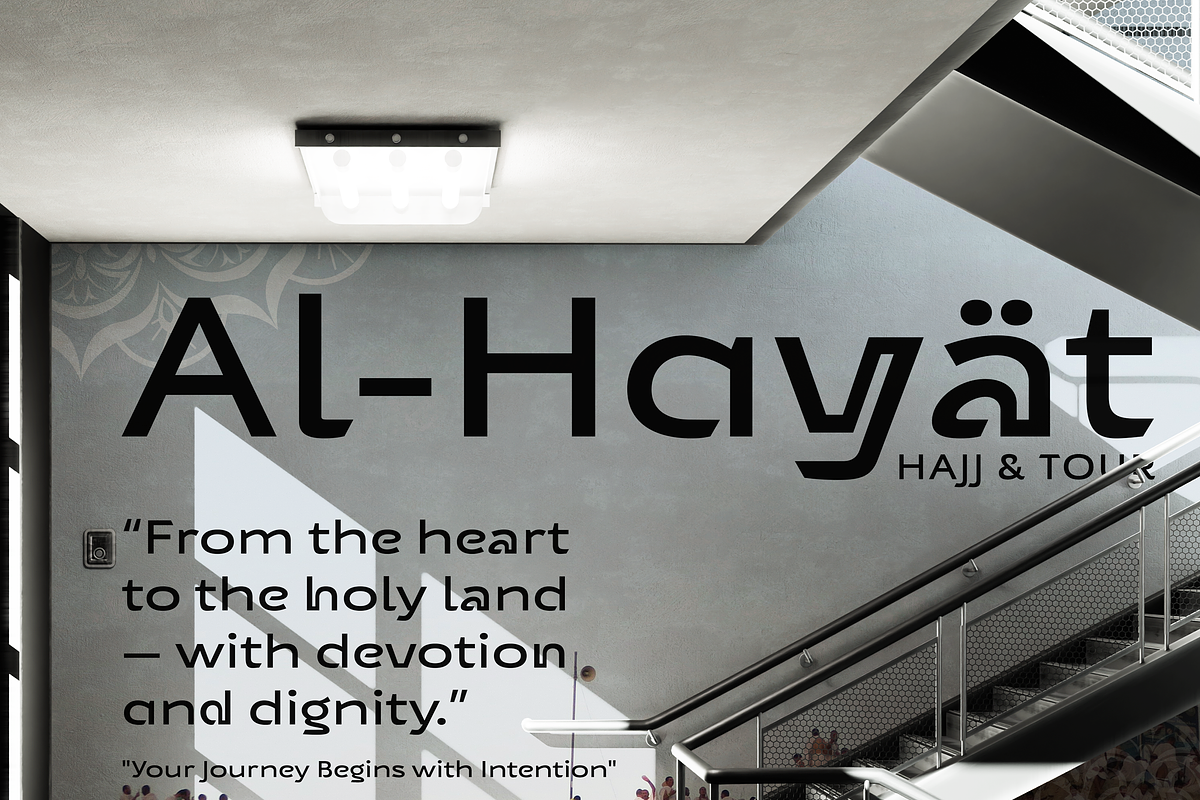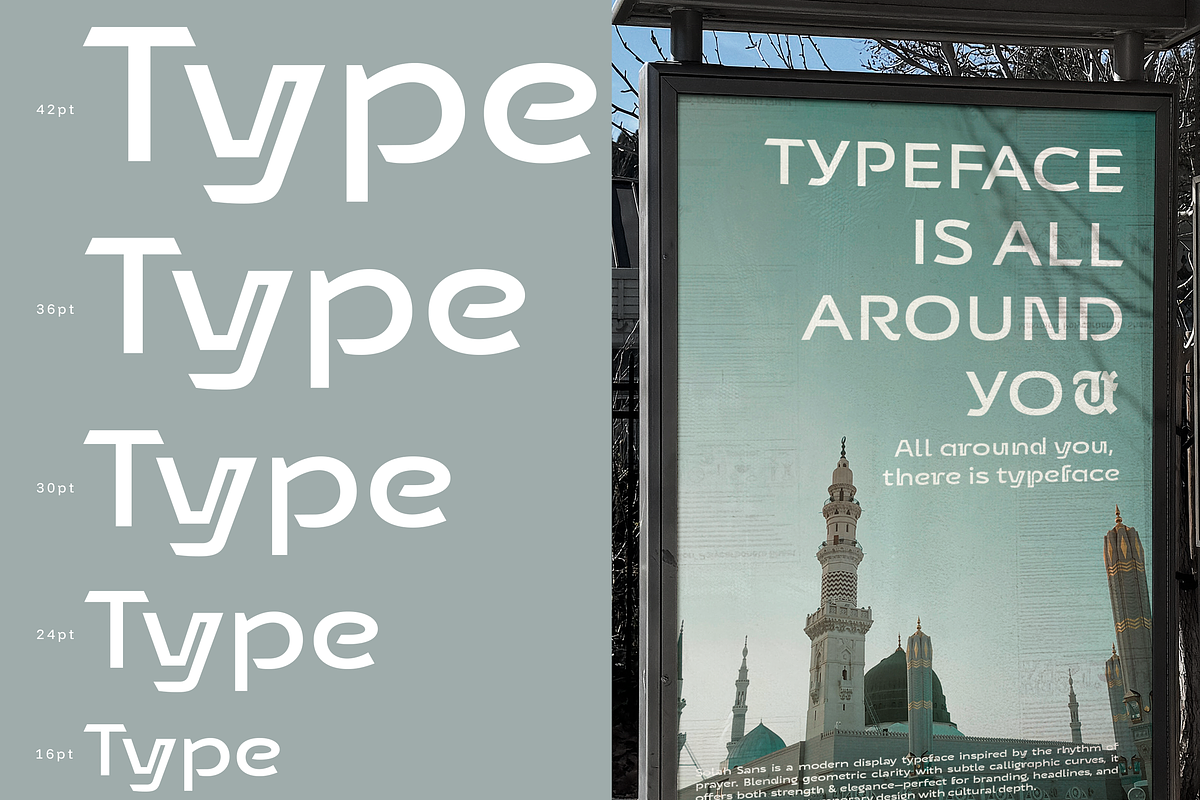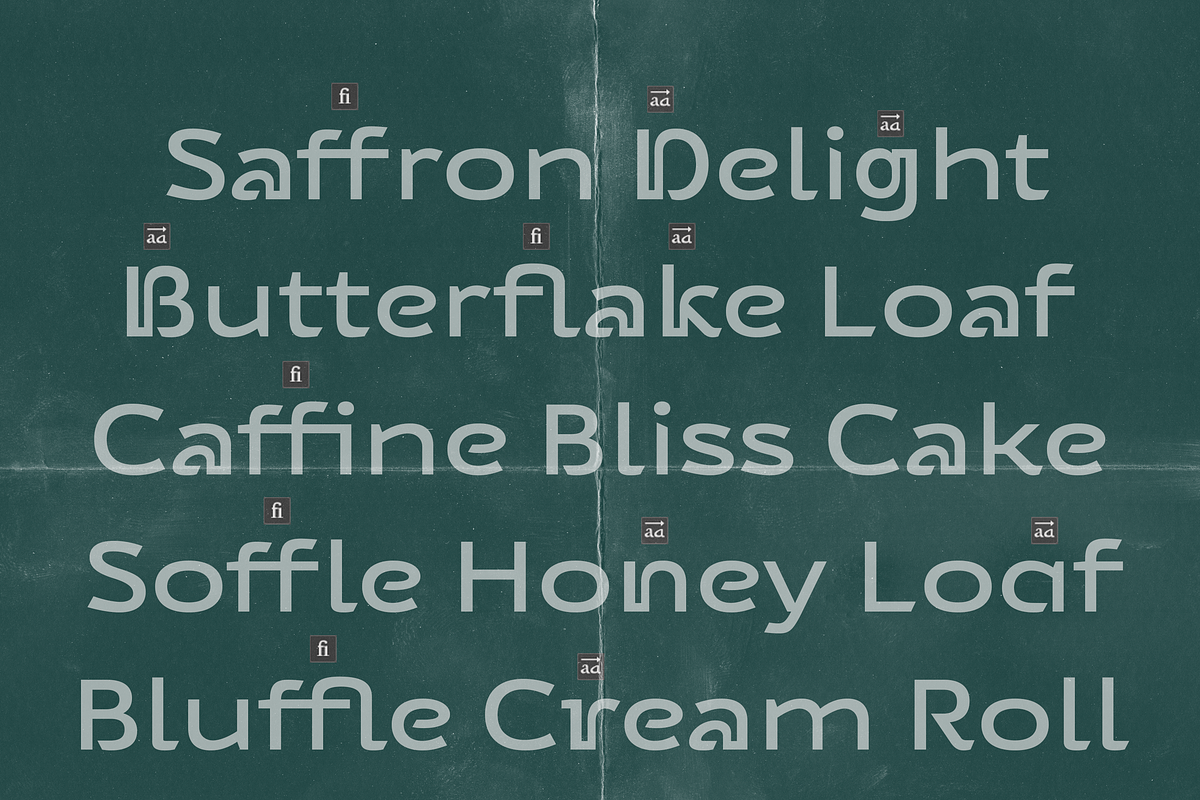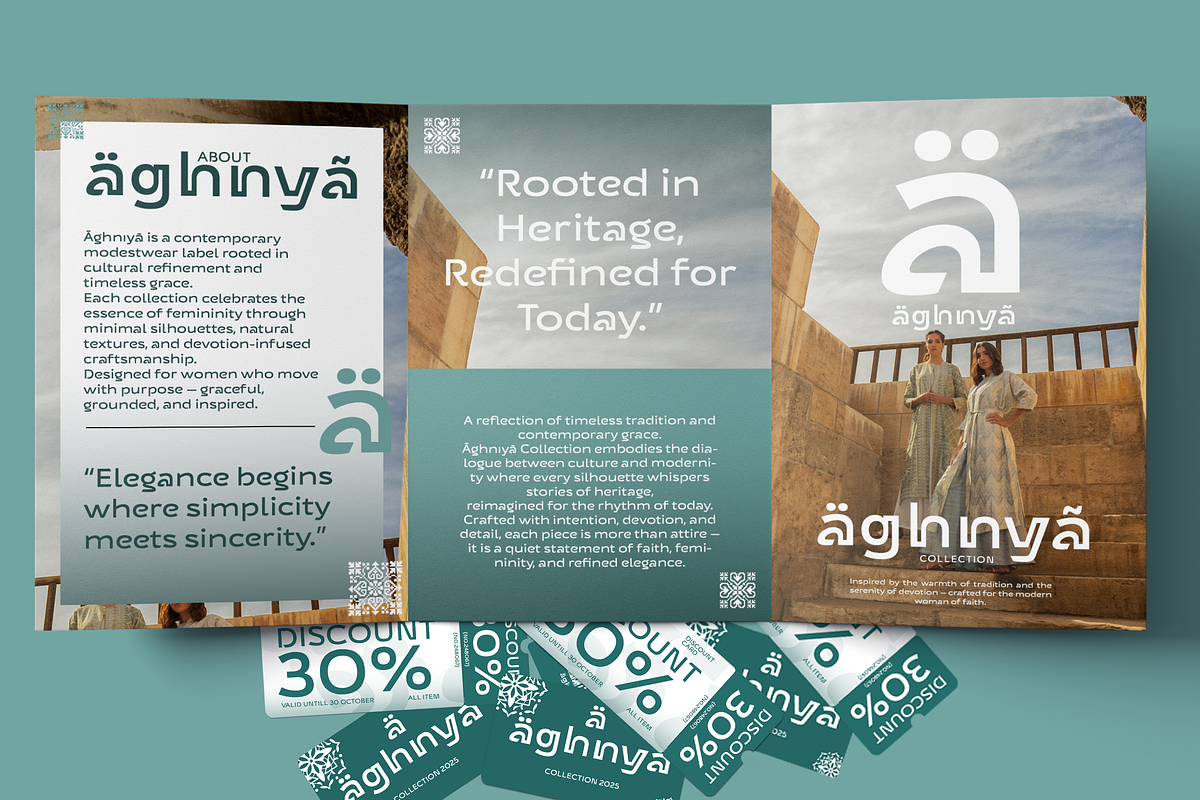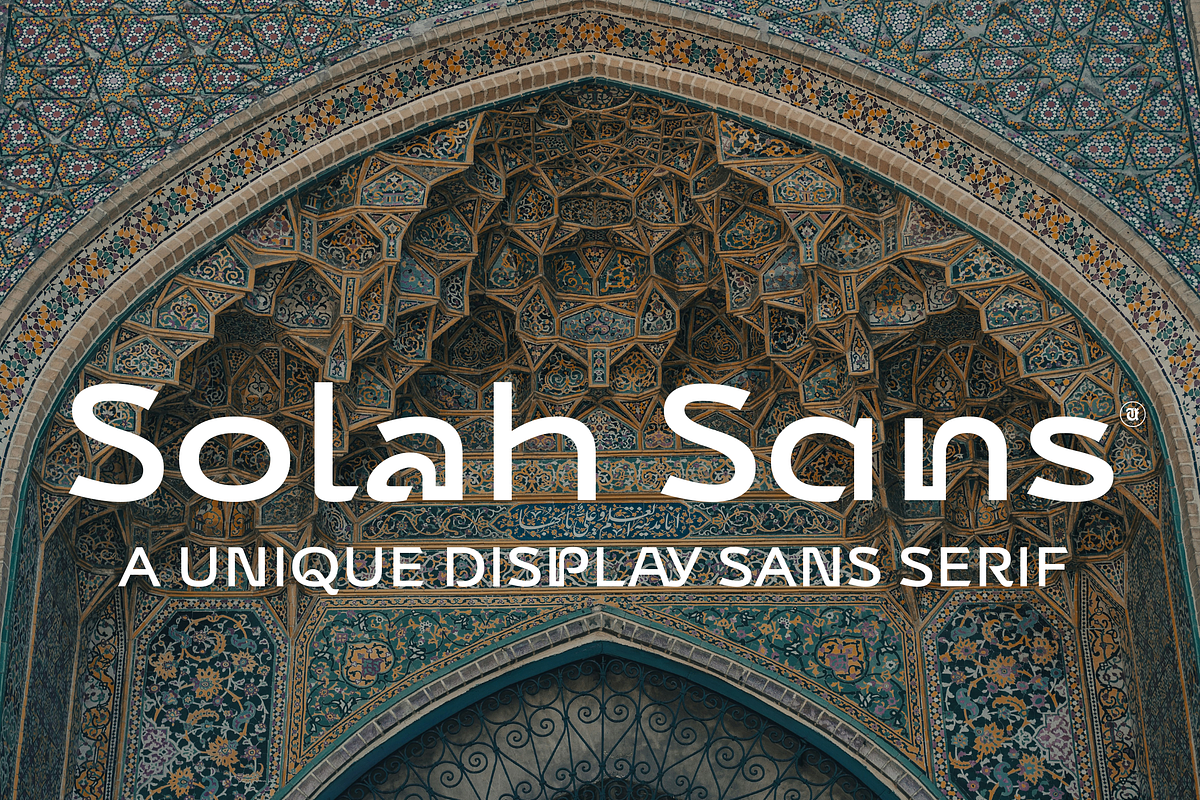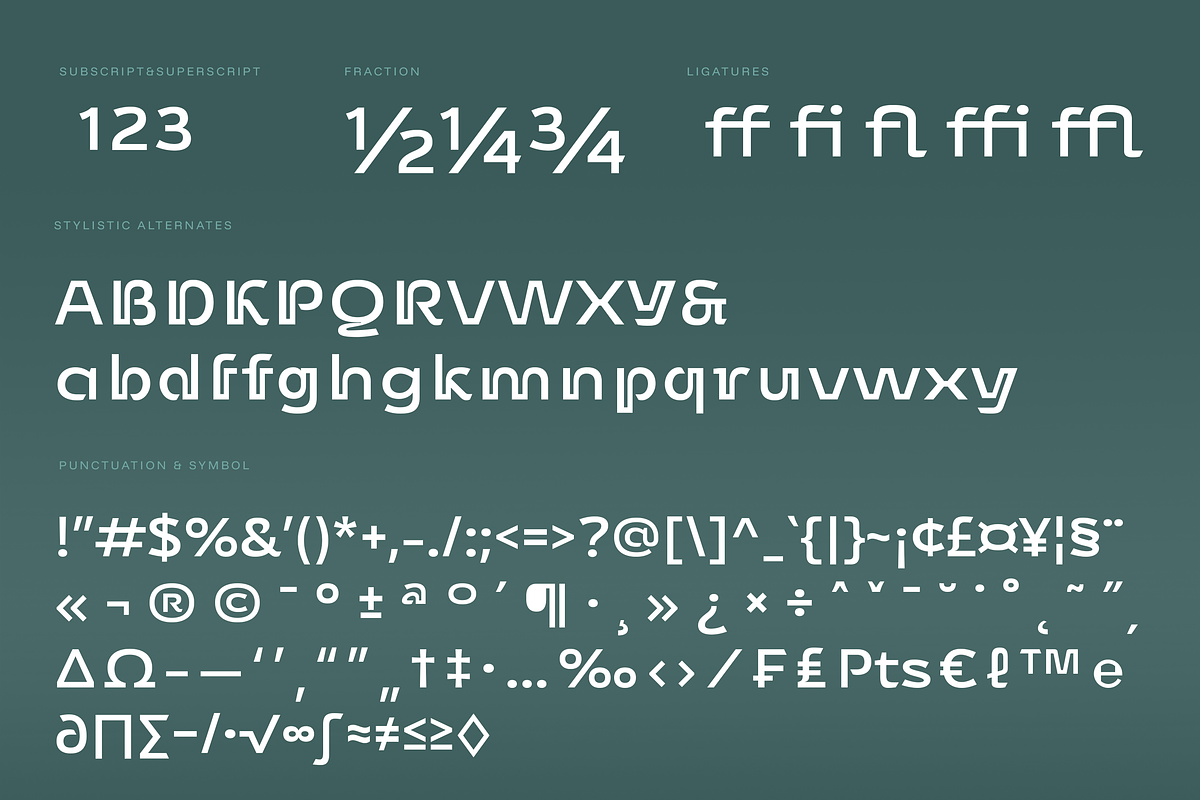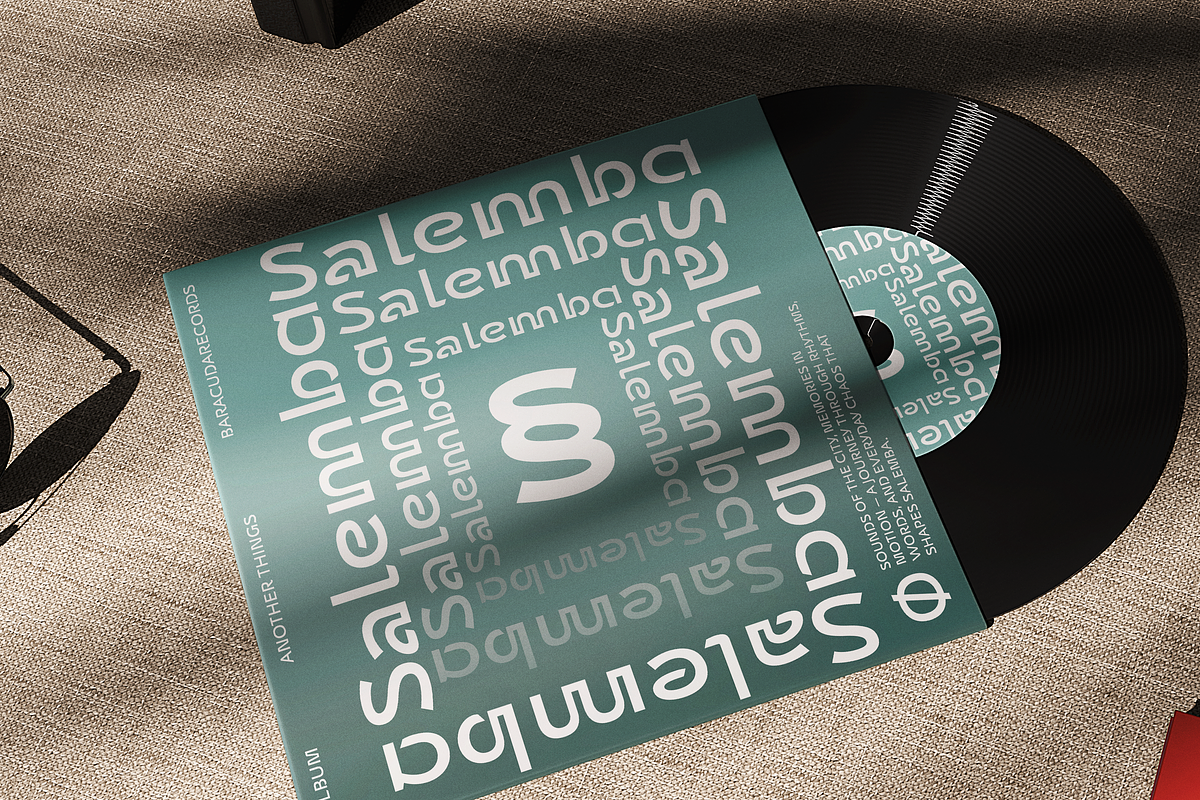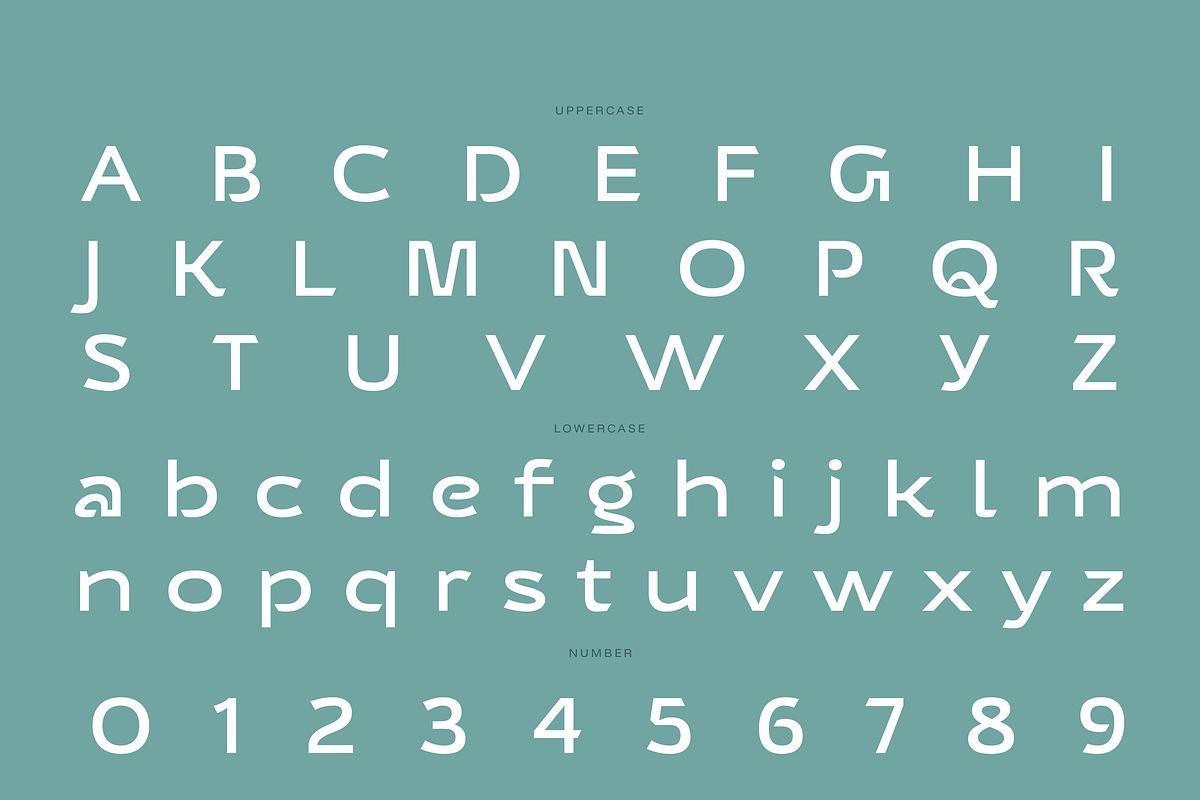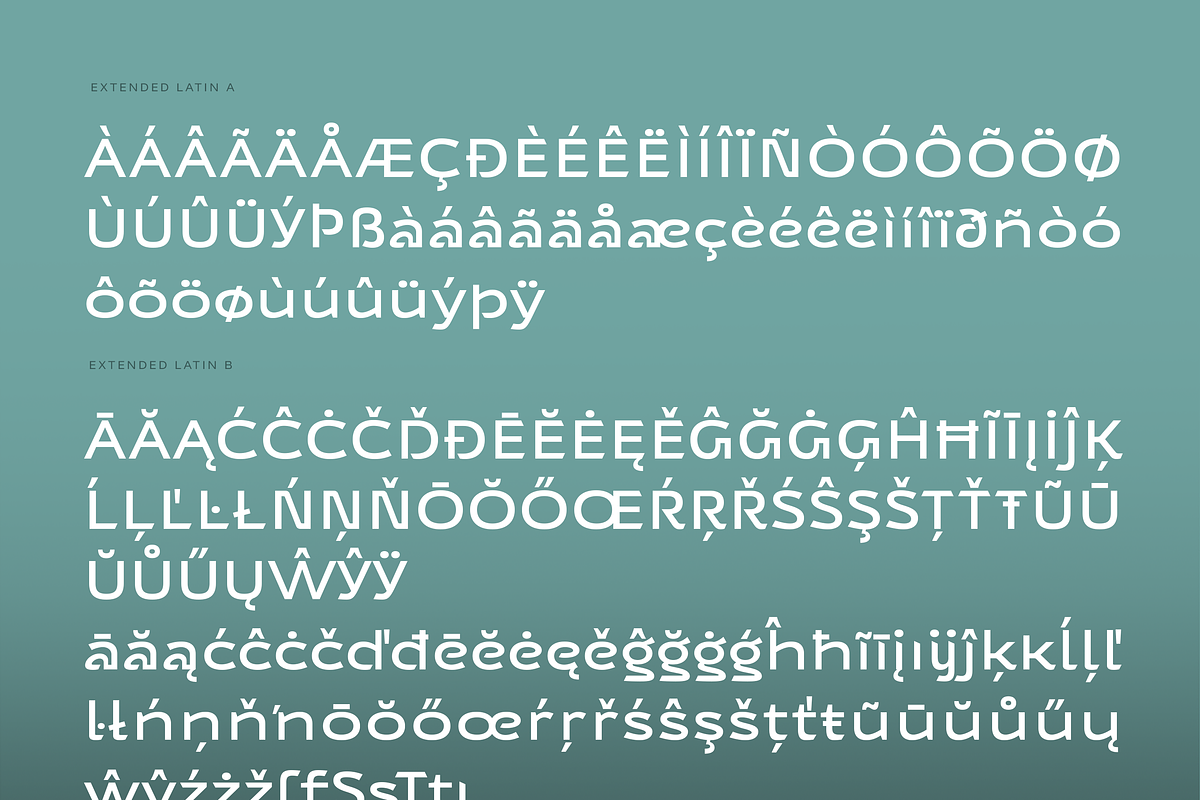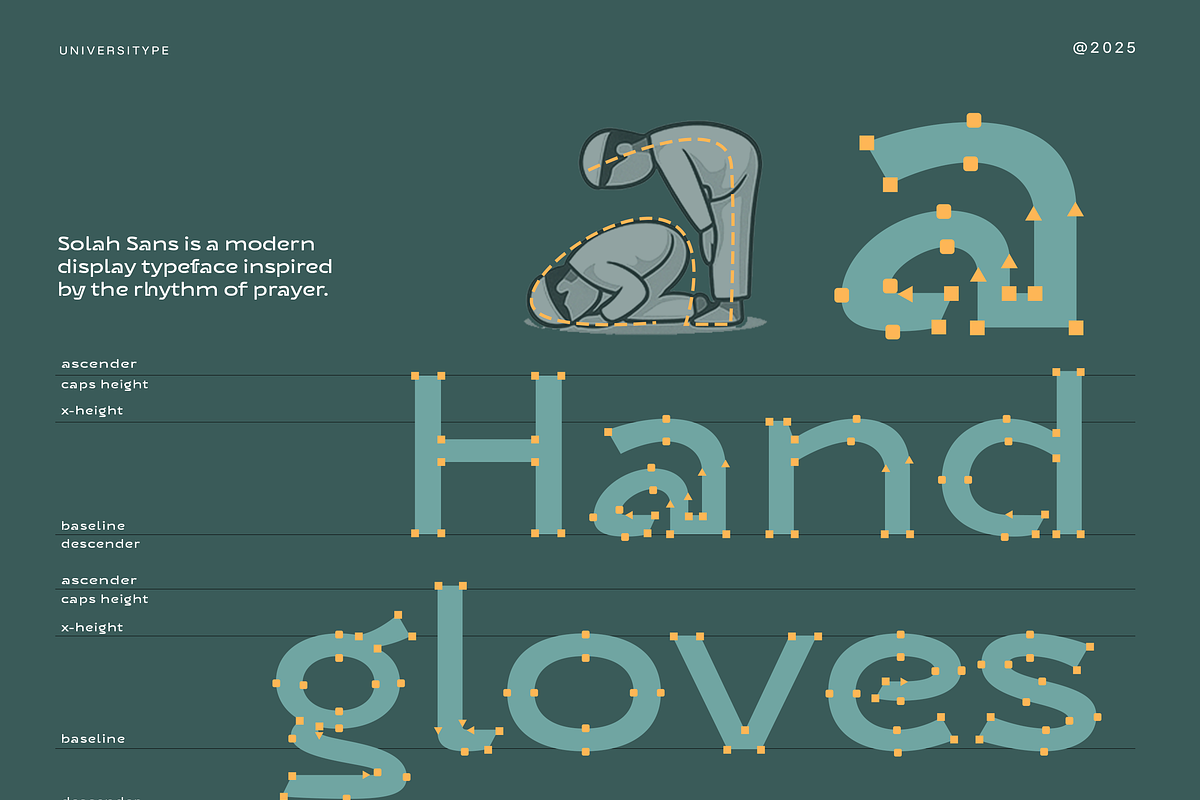
UT Solah Sans - Unique Display Sans
UT Solah Sans - Soft geometry with spiritual breath
UT Solah Sans brings a calm, soulful rhythm into modern typography. It carries the gentle flow of movement and devotion, shaped by subtle curves and confident geometry.
This typeface feels at home in spaces where clarity meets emotion — where faith, culture, and contemporary design shake hands. Think of it as a quiet companion that speaks with purpose: soft corners, steady posture, and a touch of sacred elegance in every stroke.
Clean enough for today’s branding needs. Distinct enough to stay in memory.
Target Audience
Designers, brands, and creators who appreciate modern simplicity with cultural depth — especially those who blend identity, spirituality, and contemporary aesthetics in their work.
Perfect for Muslim-focused brands, editorial designers, cultural institutions, fashion lines, and creative studios looking for a unique voice rooted in meaning.
- 400+ carefully drawn glyphs
- 30+ stylistic alternates for expressive headlines
- Rounded flow and balanced proportions
- Smooth curves inspired by graceful movement
- Modern display feel with cultural warmth
- Clean readability with personality
- Suitable for Latin-based languages, 200+ language support
Inspiration Behind the Design
Solah Sans echoes the rhythm of prayer — the calm breath, the rise and bow, the connection between body, spirit, and space. Curves hint at movement. Geometry reflects discipline. Each letter carries a quiet grace shaped by devotion and stillness.
Architecture, spiritual rituals, and soft motion informed its structure — giving it that gentle, intentional flow.
Usage Suggestions
A great fit for projects that want a sense of depth and story:
• Identity and branding • Editorial layouts and magazines • Fashion lookbooks • Religious or cultural publications • Minimal packaging • Web banners, social posts, and UI accents • Event graphics and posters
Works beautifully at larger sizes where the curves breathe and the rhythm shows.